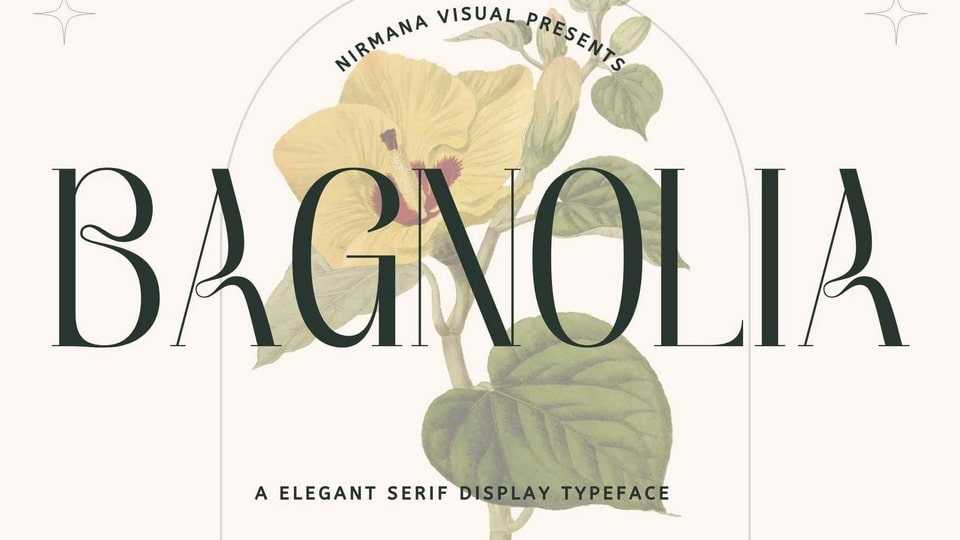
Download Bagnolia font, a contemporary display typeface. Bagnolia offers beautiful typographic harmony for a diversity of design projects such as logos, branding, social media posts, advertisements, product designs, and many more.